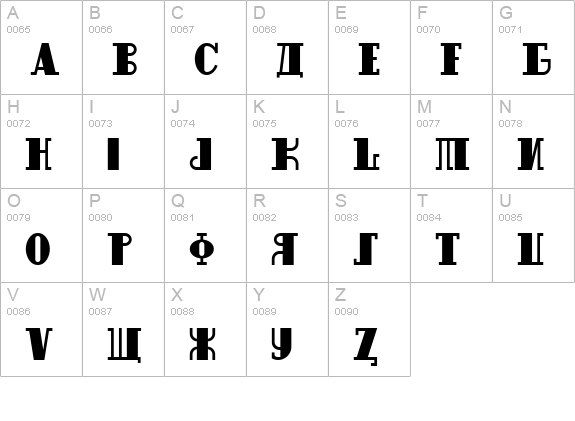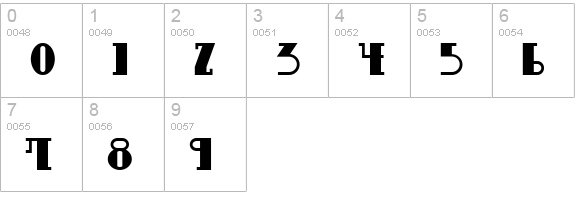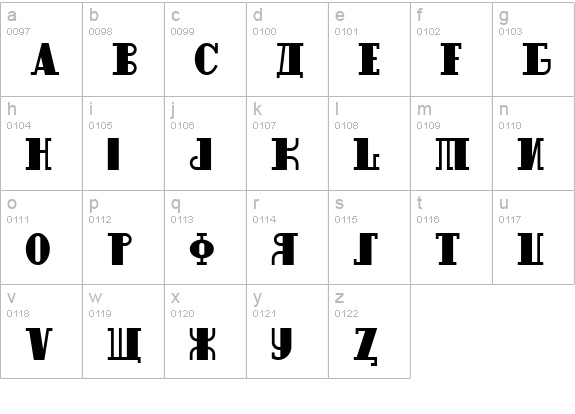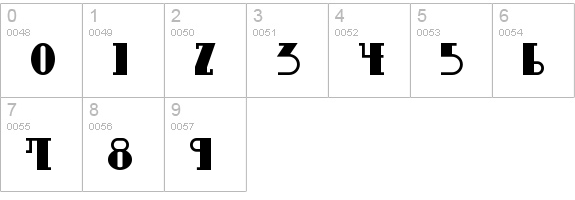
Raskalnikov NF Font Details
Raskalnikov NF font exudes a unique blend of elegance and modernity, making it a versatile choice for various design projects. Its sleek and stylish appearance is sure to captivate your audience and elevate your creations to the next level. The sharp, edgy lines of this font convey a sense of sophistication and creativity, perfect for adding a touch of flair to your designs. Best of all, Raskalnikov NF font is available for free download at FontsMarket.com. This means you can easily access this stunning typeface without any cost, allowing you to unleash your creativity without any barriers. Whether you're working on branding, posters, invitations, or any other project, Raskalnikov NF font is sure to make a bold statement and leave a lasting impression. Download this font today and take your designs to new heights!